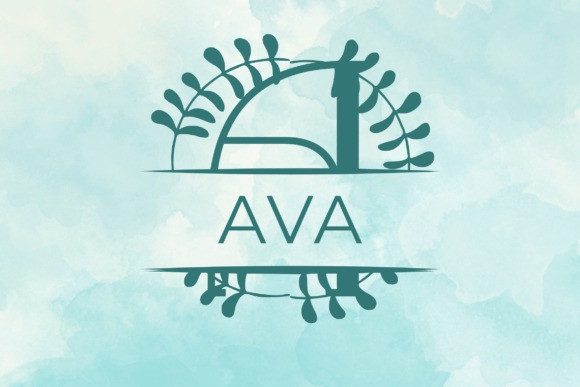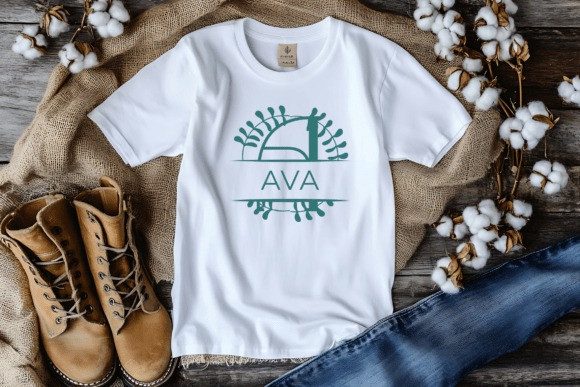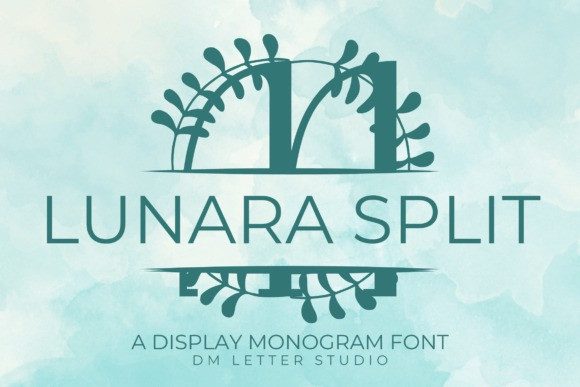
Lunara Split Monogram Font is a charming display monogram font that blends elegance with a nature-inspired twist. Each uppercase letter and number is split horizontally, adorned with delicate botanical accents that resemble vines or sprigs growing across the character forms. The result is a sophisticated, modern font ideal for personal monograms, branding, weddings, or any design requiring a graceful and ornamental touch. Its clean and minimal structure, paired with leafy decorations, makes it perfect for creative projects that aim to feel custom, feminine, and fresh.
With its blend of modern elegance and classical roots, Lunara Split Monogram is a perfect addition to your font library—ready to elevate any custom design project with grace and precision.